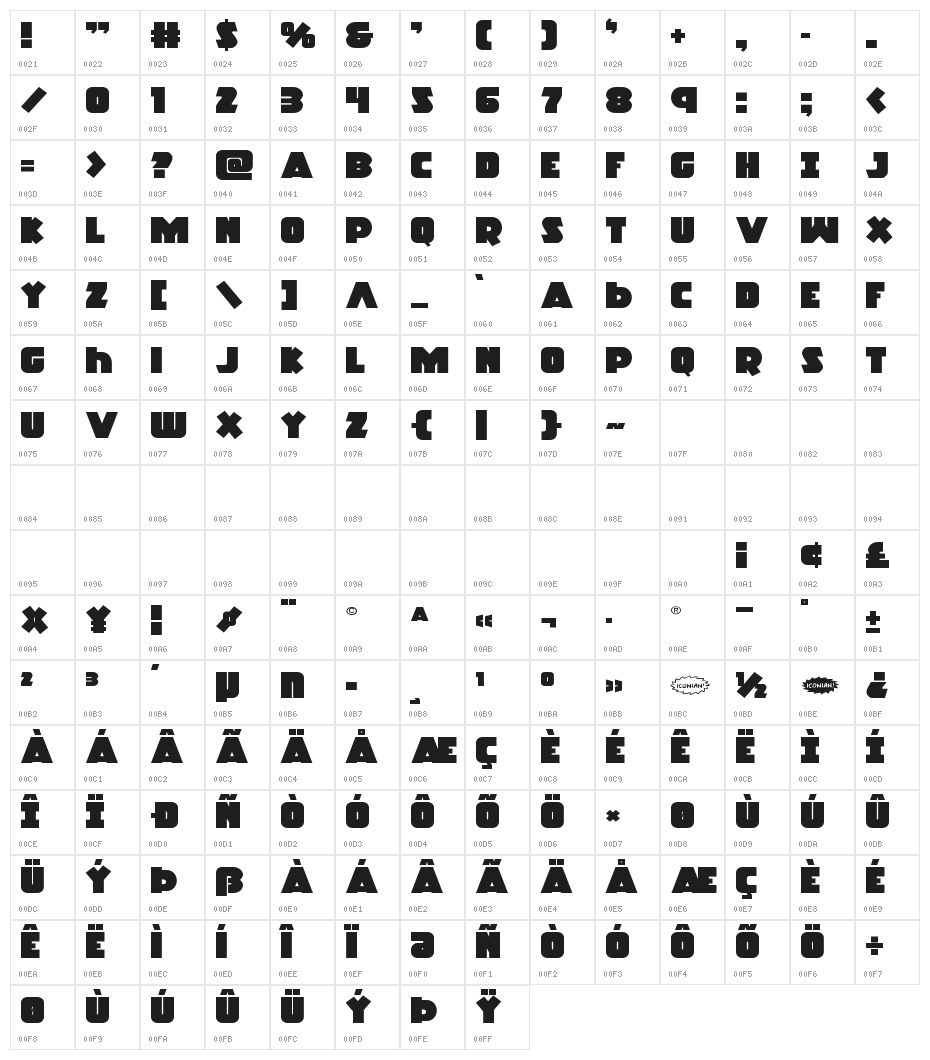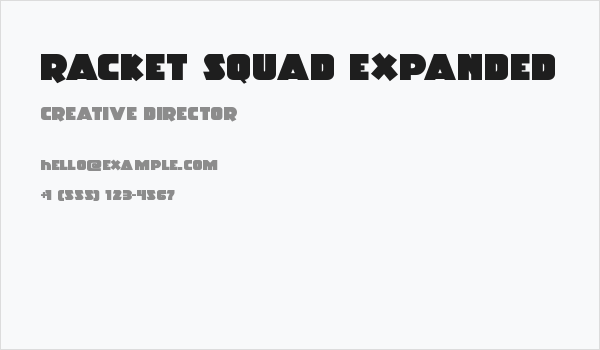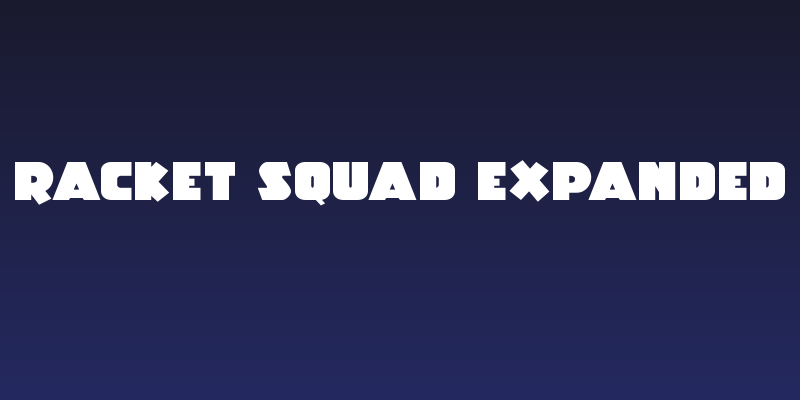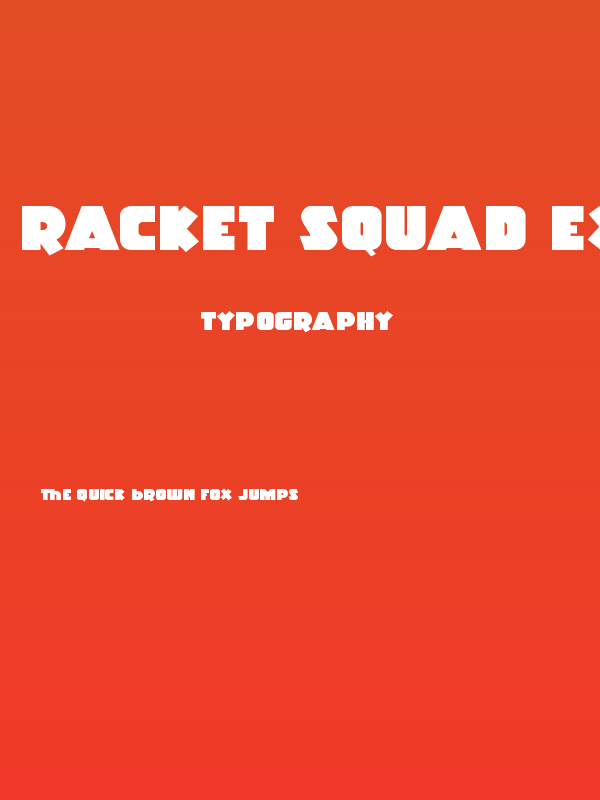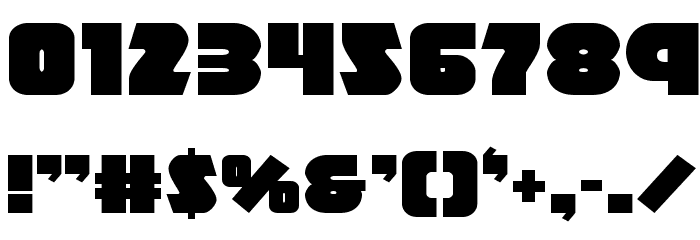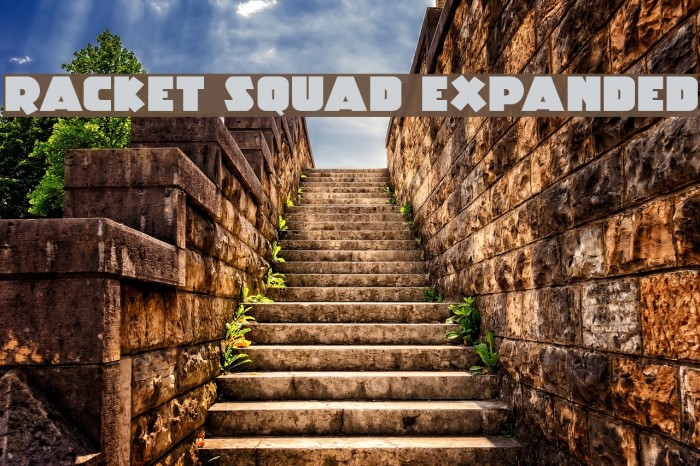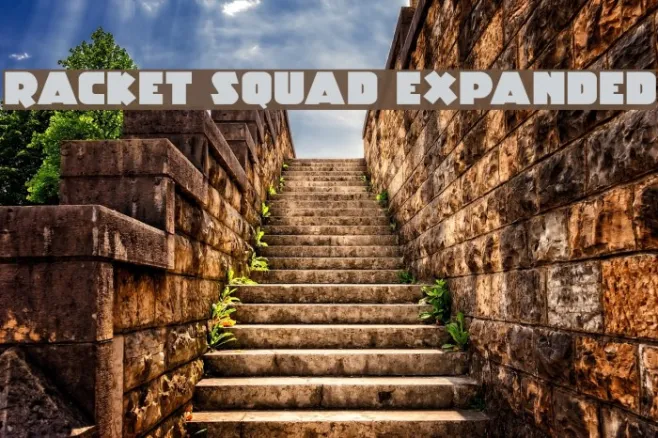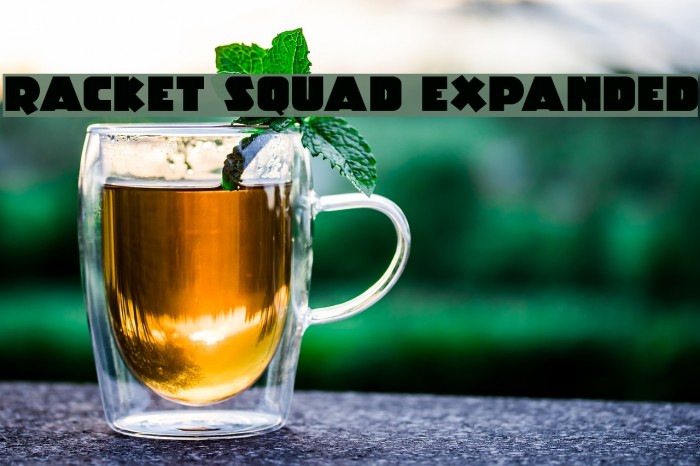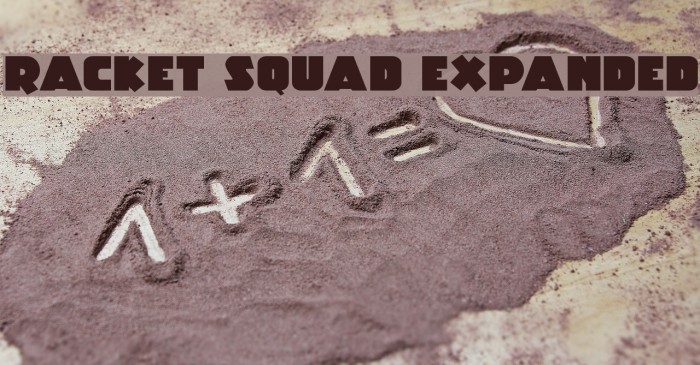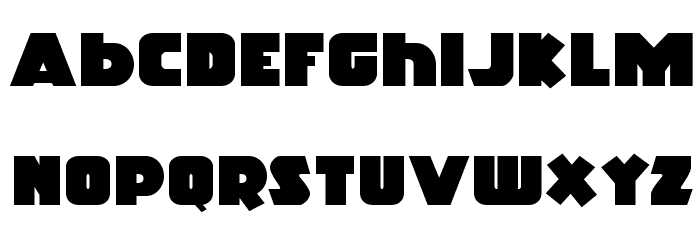
Racket Squad Expanded Font
Racket Squad Expanded Description
This bold and striking font features a geometric and blocky design, characterized by its thick, uniform strokes and angular edges. The letters are wide and expansive, creating a strong visual impact. The uppercase and lowercase letters maintain a consistent style, with slight variations in form to distinguish them. Numbers and special characters follow the same bold and structured aesthetic, ensuring a cohesive look across all elements. The font's design is reminiscent of retro or vintage styles, yet it maintains a modern appeal due to its clean lines and solid forms.
| Proposed Projects | Ideal for projects needing a strong visual presence, such as posters, logos, headlines, and branding materials. |